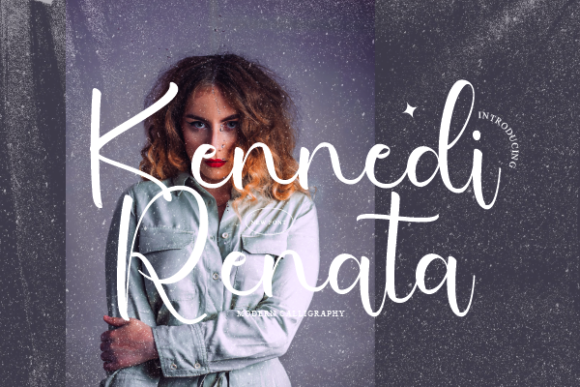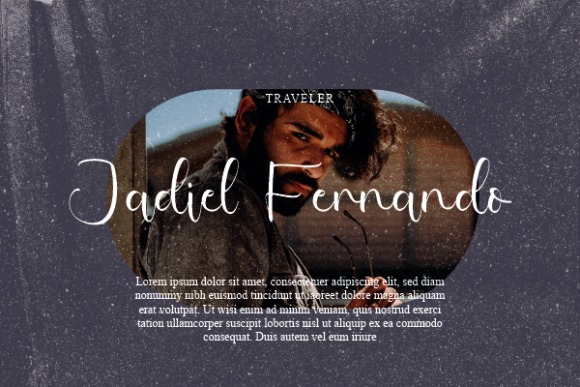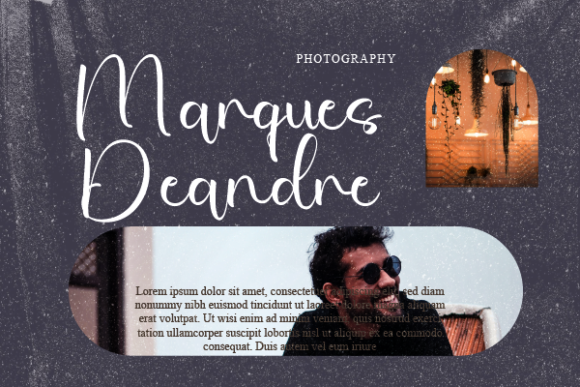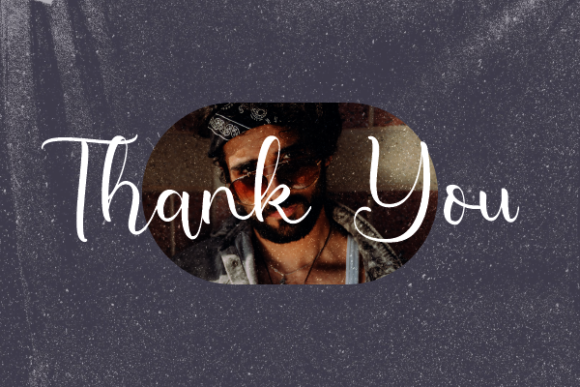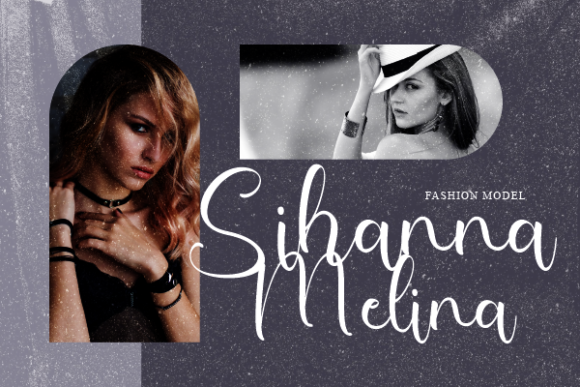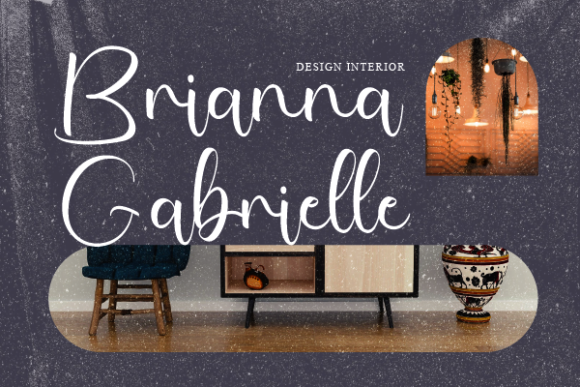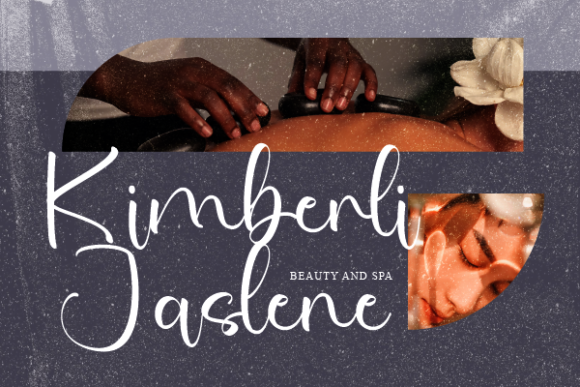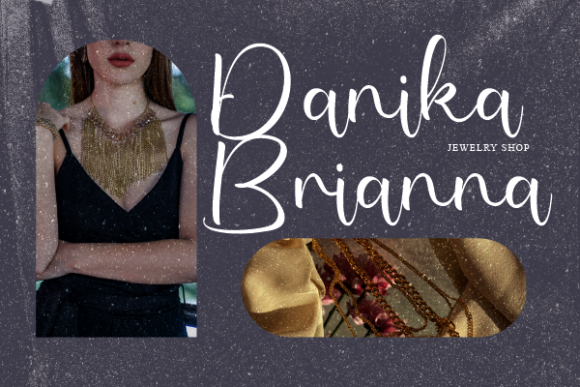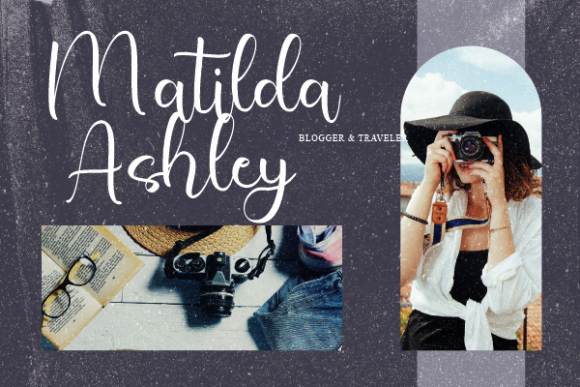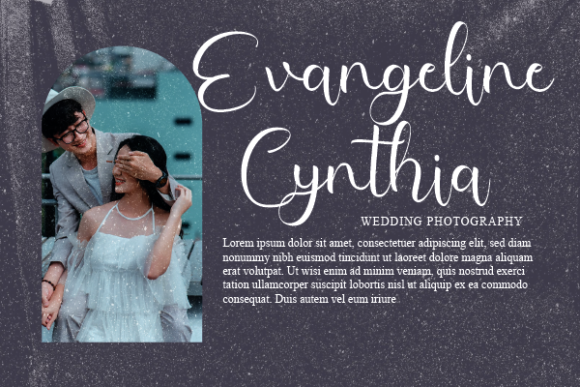
Kennedi Renata Font
About Kennedi Renata Font
“Kennedi Renata” emerges as a fashionable and delicate script font, exuding an aura of elegance and charm. With its versatile appeal, it seamlessly fits into a wide array of projects, ranging from logos and branding endeavors to labels, photography, watermarks, special events, and any other lovely creations that yearn for a touch of exquisite script sophistication.
Envision “Kennedi Renata” as a brush that gracefully sweeps across your designs, leaving behind strokes of beauty and refinement. Its intricate curves and stylish lines infuse your projects with a sense of luxury, transforming them into visual masterpieces that capture attention. As you incorporate this font into your creations, you’ll embark on a journey where your concepts evolve into captivating visual stories.
Beyond its visual allure, “Kennedi Renata” embodies an essence of artistry and authenticity. Its script nature imparts a touch of charm, turning your designs into more than just visuals – they become expressions of elegance and sophistication. Each character contributes to the intricate tapestry of your creative vision.
“Kennedi Renata” stands as a versatile tool in your design toolkit. Its adaptability enables it to harmonize seamlessly with various styles, themes, and intentions. Whether it’s a memorable logo, an enchanting label, or an elevated watermark, this font enhances the impact of your message.
In a world where design communicates emotions, “Kennedi Renata” becomes your vehicle for crafting designs that resonate deeply and leave a lasting impression. Let its delicate strokes be the artistic flourishes that elevate your creations, infusing them with a touch of script elegance. Embrace the sophisticated allure of “Kennedi Renata” and watch as it transforms your projects into captivating showcases of refinement, resonating with all who engage with them.